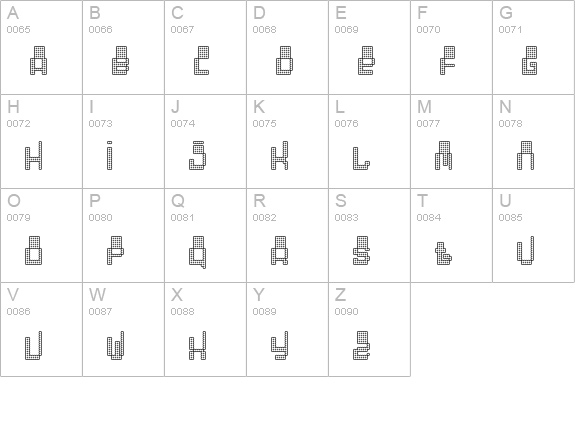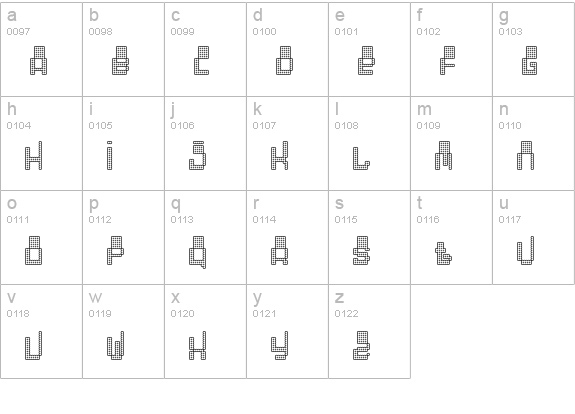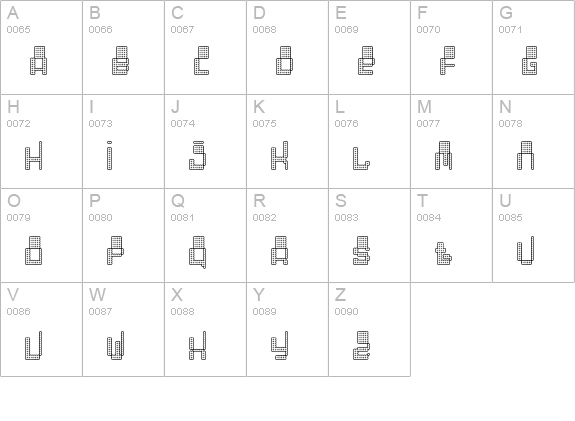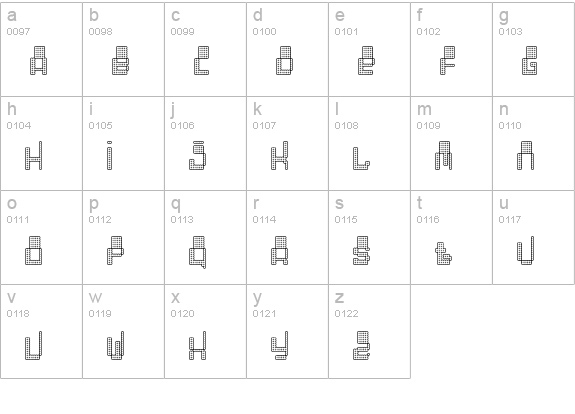
Introducing the mesmerizing Oddessey 6000 font, a captivating blend of futuristic aesthetics and classic elegance. With its sleek lines and unique geometric shapes, Oddessey 6000 is perfect for adding a touch of modern sophistication to your design projects. This versatile font is ideal for branding, logos, posters, and more, offering a bold and dynamic look that is sure to make a statement. What's even better is that Oddessey 6000 is available for free download at FontsMarket.com! Now you can add this striking font to your collection without any cost, and unleash your creativity with its limitless potential. Don't miss out on the opportunity to elevate your designs with the stunning Oddessey 6000 font - get your free download today!